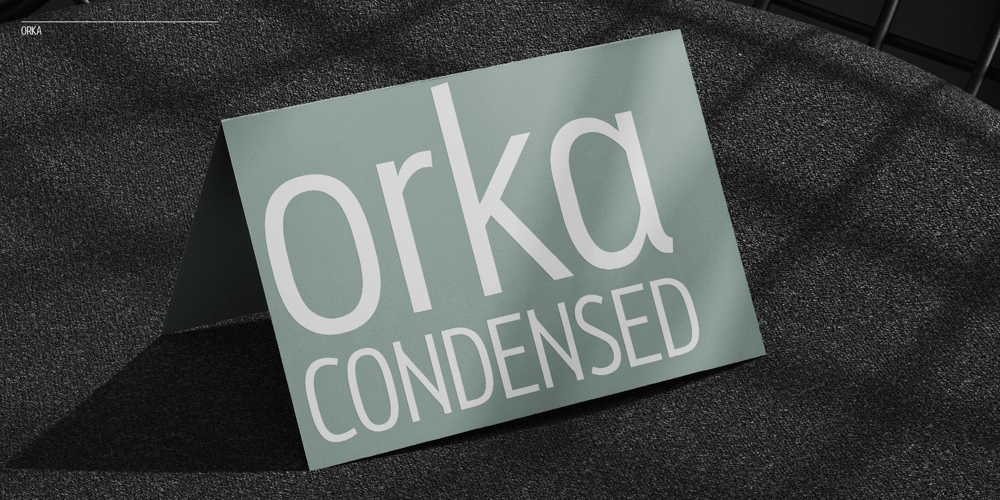
Orka Condensed Font Family was designed by Paul Henry Robb and published by S6 Foundry. Orka Condensed contains 1 styles and family package options. Orka Condensed Sans is a stylistic font developed within a set grid that creates harmony and form through elegant forms, for use at both text and display sizes. Orka Condensed is perfectly suited for headlines, large-format prints, brand identities, social media, advertising, editorial design, posters, magazines, logos, headings, body copy, digital and more.Multi-language support.